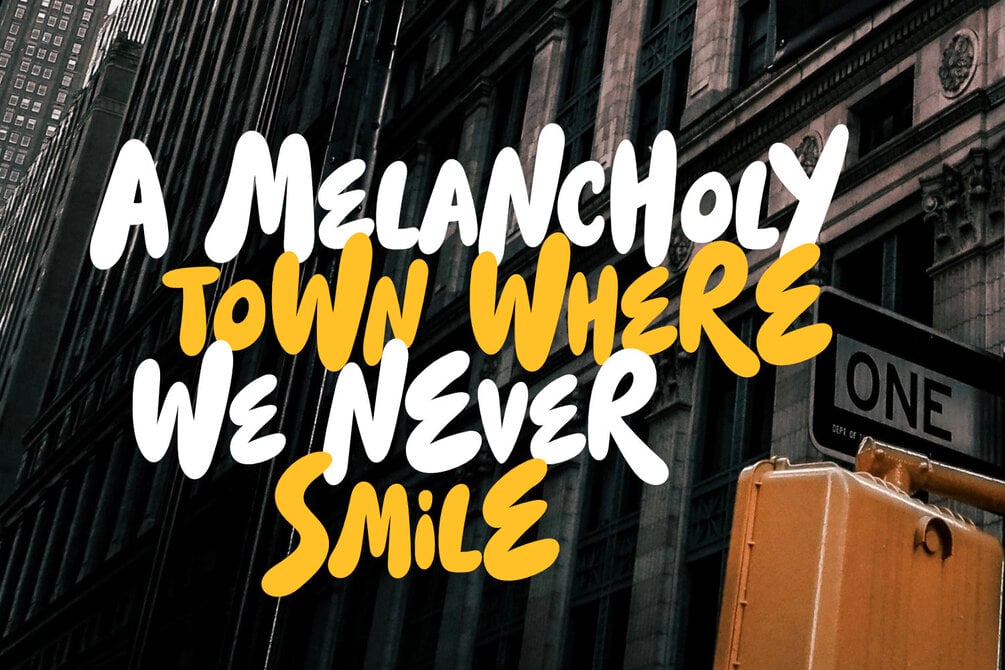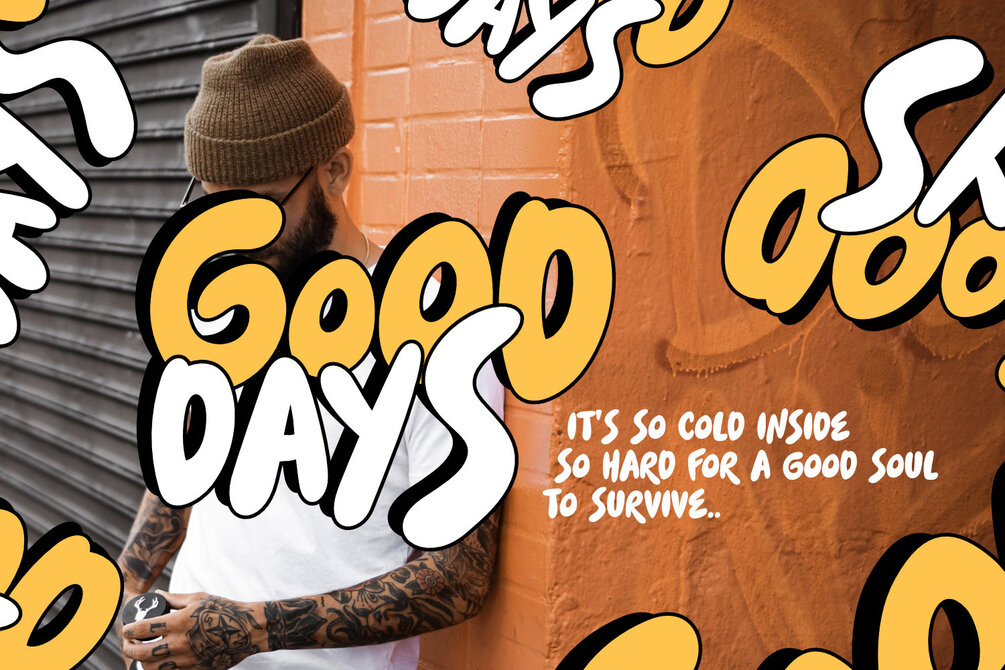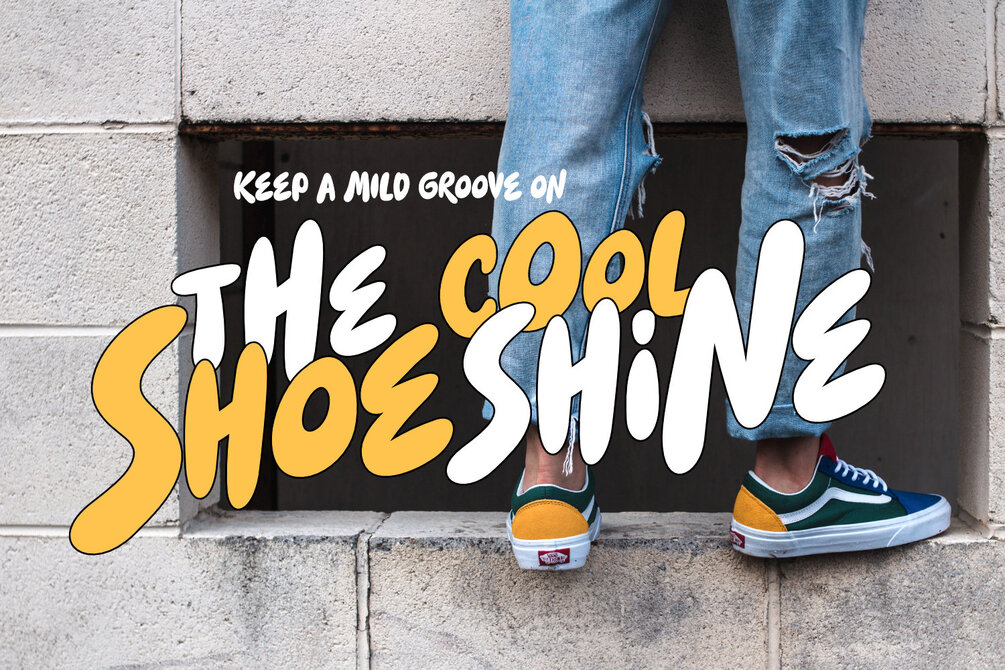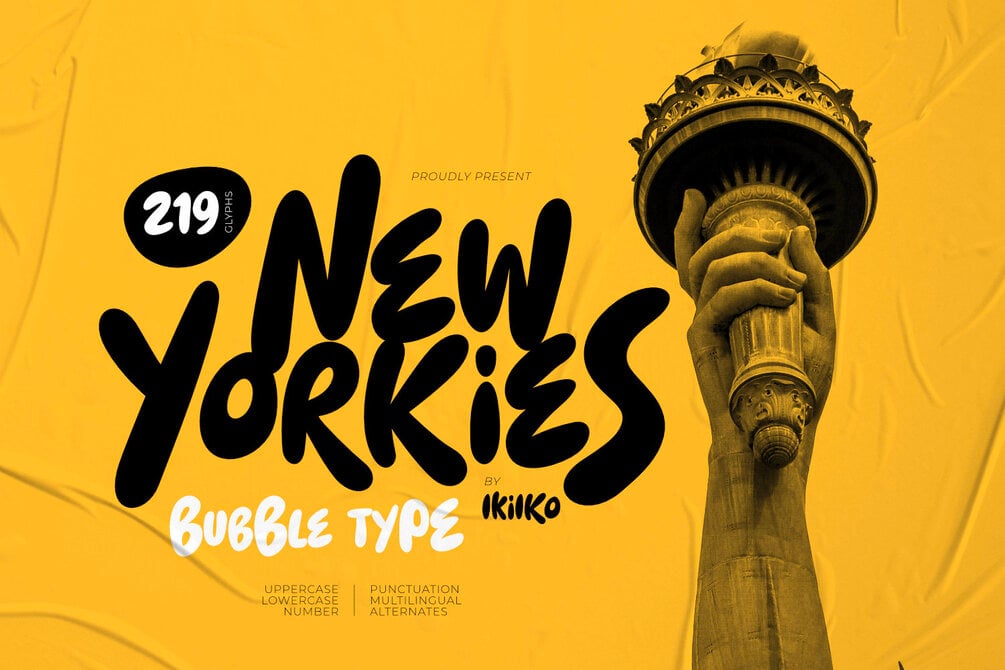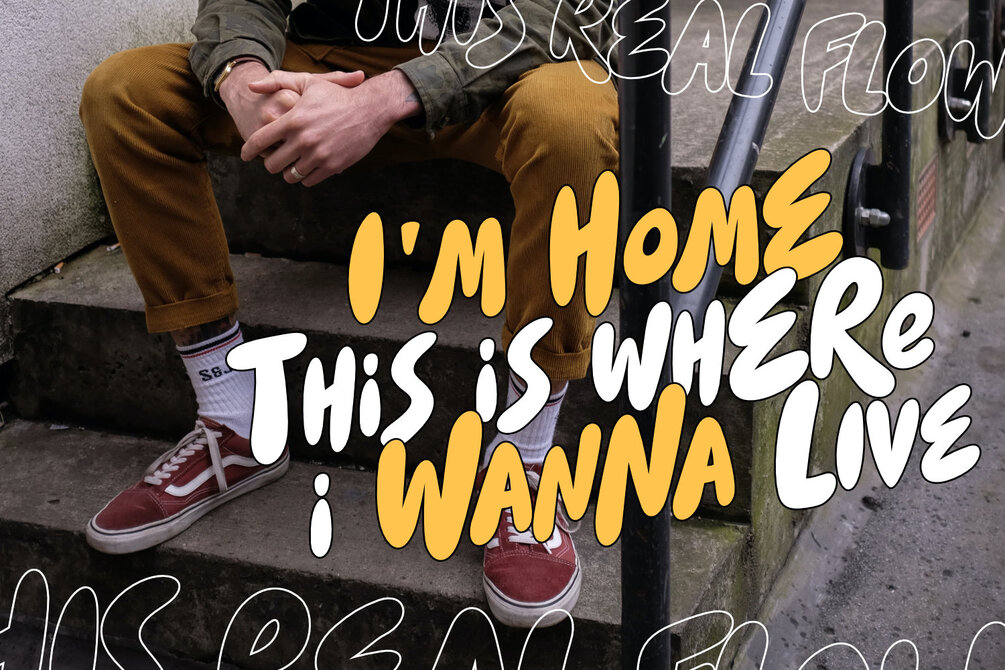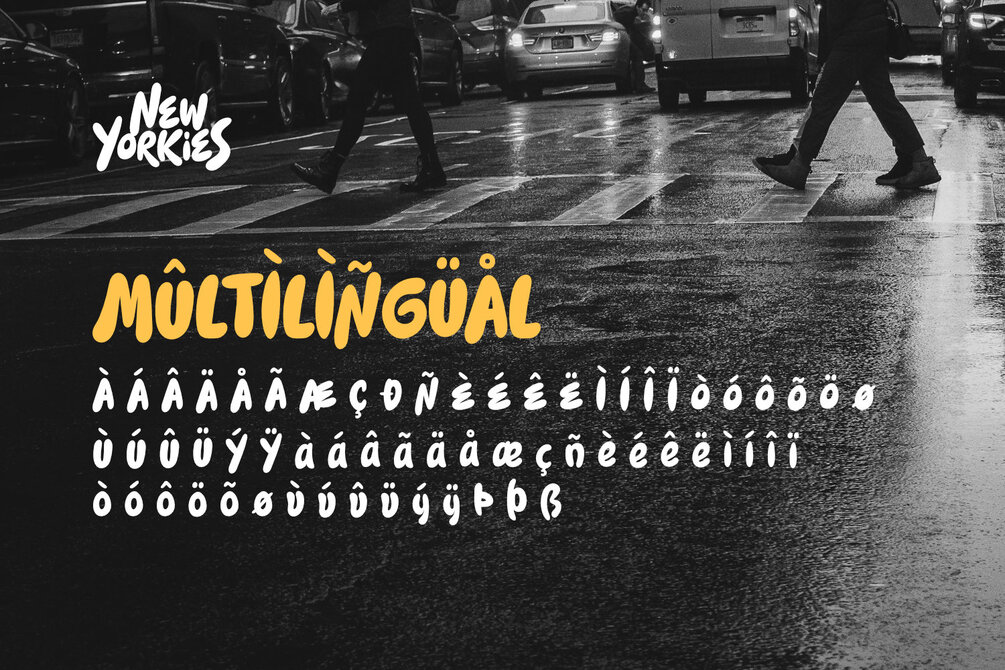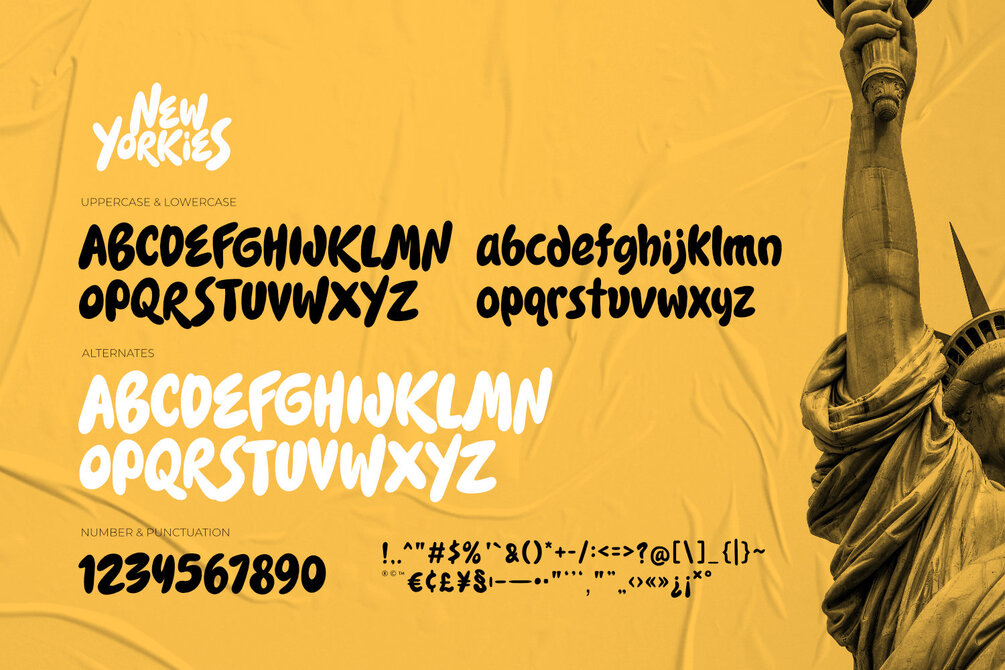
New Yorkies - Bubble Font
Proudly present New Yorkies - Bubble Font, created by ikiiko.
New Yorkies is a handwritten bubble font with spontaneous curves inspired by the visual of the fashion street style. This type is in the form of free writing with a art, expressive, cheerful, and youth spirit. New Yorkies is very suitable for making a streetwear brand, poster or magazine layout, fashion design, quotes, or simply as a stylish text overlay to any background image.
• Uppercase & Lowercase
• Numbers & Punctuation
• Alternates
• Multilingual Support